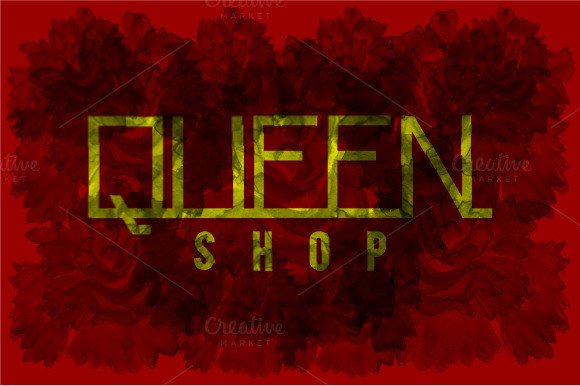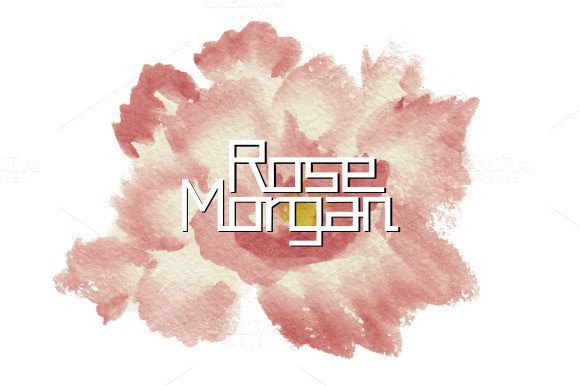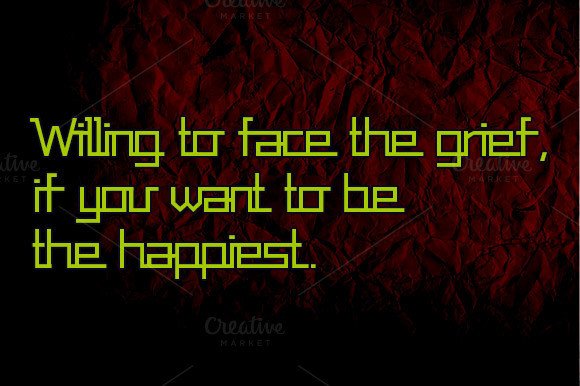
For those looking to add a touch of futurism to their designs, the Flying Landing Font is a game-changer. This stunning squared display font is designed to make a statement, perfect for headlines and title treatments that demand attention. Whether you’re working on a futuristic sci-fi project or a retro-futuristic theme, the Flying Landing Font is the perfect anchor for your designs.
With its high-impact style and unique flair, the Flying Landing Font is a valuable addition to any designer’s toolkit. It’s the perfect way to add some visual excitement to your work, and its versatility makes it a great choice for a wide range of projects.
Flying Landing Font Key Features
- Font Family: A unique, modern sans-serif font designed specifically for digital use.
- Unique Characteristics: Features a distinctive, futuristic feel with a subtle nod to traditional typography, making it ideal for modern branding and digital design.
- Font Weight: Available in 5 weights (Light, Regular, Medium, Bold, and Black), allowing for flexibility in design applications.
Flying Landing Font Review
I recently had the chance to work with the Flying Landing Font, and I must say it’s an interesting experience. Here’s my honest take on this font.
- Unique design: The font has a distinctive, futuristic look that’s perfect for sci-fi or tech-related projects.
- Playful feel: The Flying Landing Font has a whimsical, playful vibe that can add a fun touch to your designs.
- Good for titles: The font’s bold, attention-grabbing style makes it suitable for titles, headings, and other prominent text elements.
- Readability issues: At smaller sizes, the font can become difficult to read due to its complex strokes and shapes.
- Limited versatility: The font’s unique design might not be suitable for all types of projects, especially those requiring a more traditional or formal look.
Overall, the Flying Landing Font is a great choice for designers who want to add a touch of futurism or playfulness to their work. However, it’s essential to be aware of its limitations and use it judiciously to avoid readability issues. With the right project in mind, this font can be a great addition to your design arsenal.
The Flying Landing Font is a versatile font that can be used in a variety of contexts, including:
– Headlines and titles
– Advertising and marketing materials
– Web design and development
Q: Does Flying Landing Font support advanced typography features?
Yes, Flying Landing Font includes advanced typography features, such as ligatures, fractions, and contextual alternates. These features are enabled through OpenType layout tables, allowing for more precise control over the font’s behavior and appearance in various design scenarios.